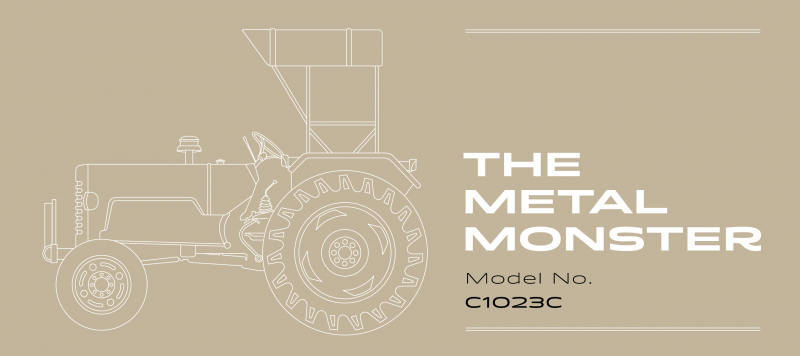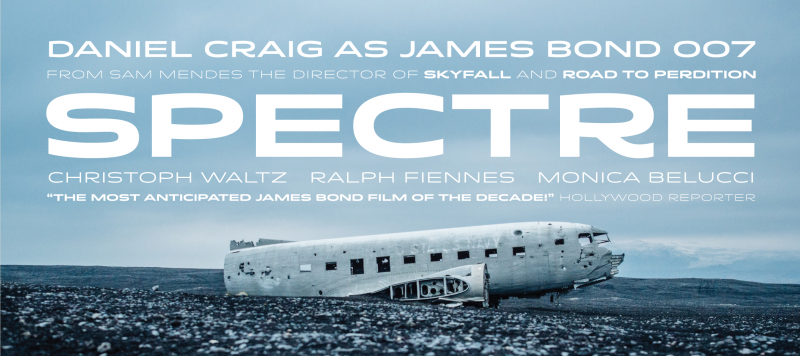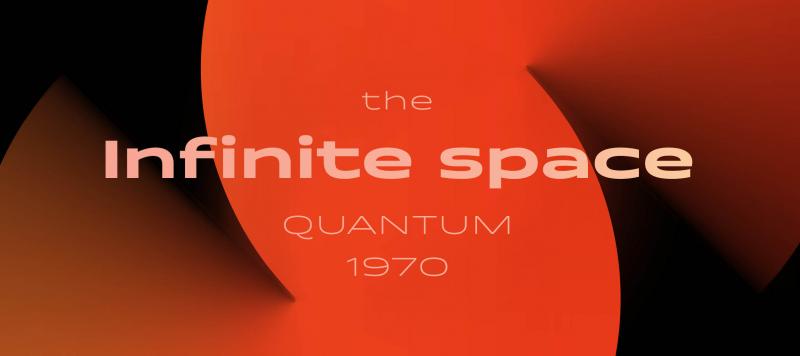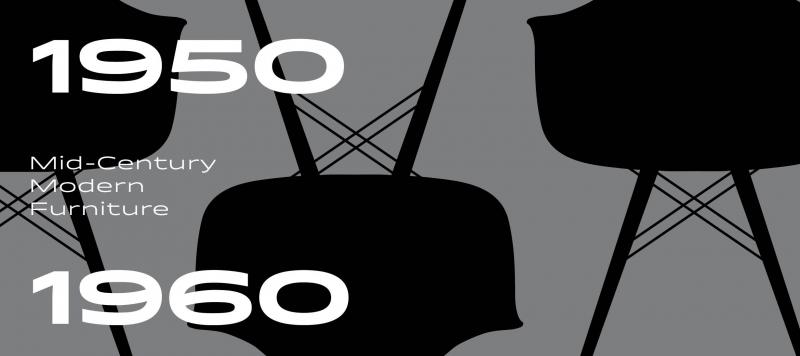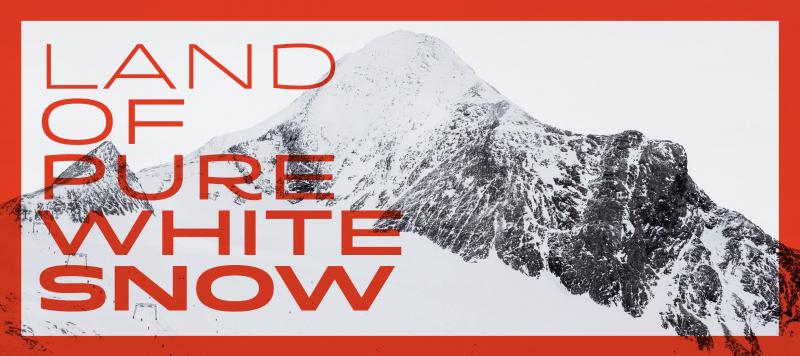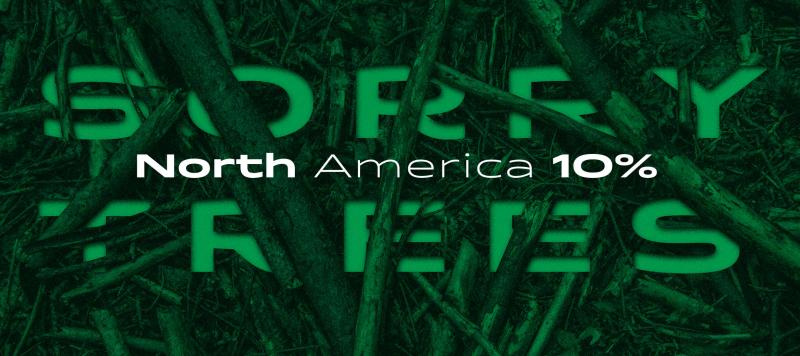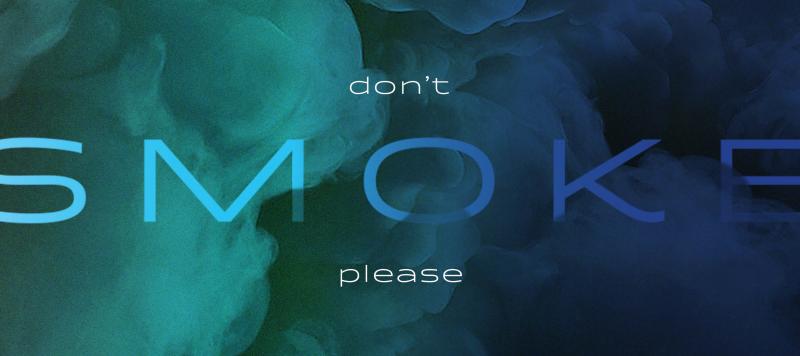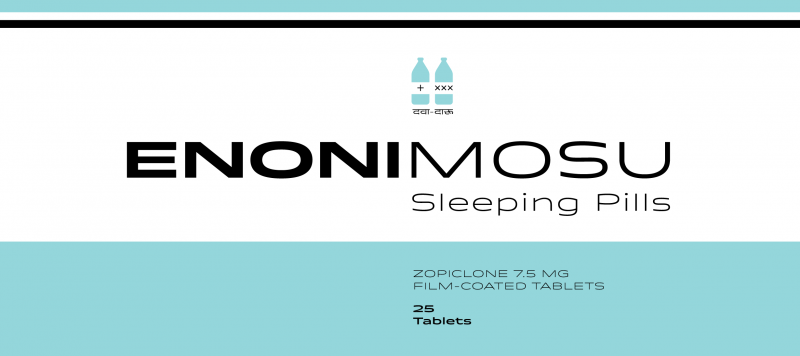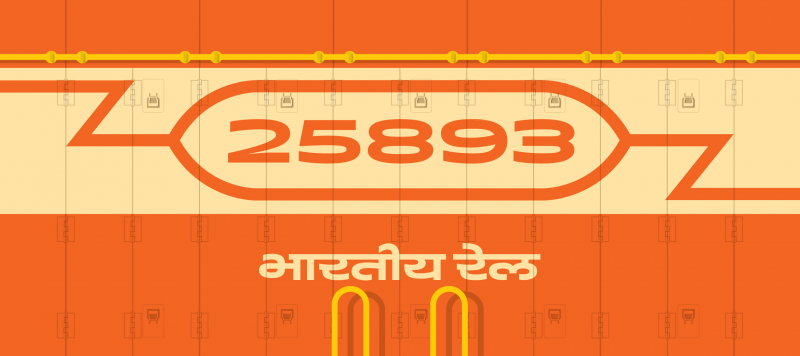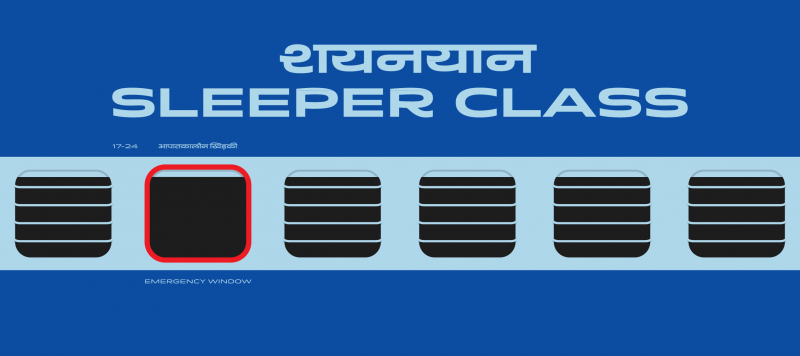
A very friendly-looking sans, Quantum is Hitesh Malaviya’s first published typeface for the Latin-script. Its five styles are very, very wide, but the letterforms do not look too technical. Stroke endings are vertical, like in a humanist sans. Don’t overlook the tails on ‘K,’ ‘Q,’ ‘R,’ and ‘k!’
Family Name | Quantum |
Designer(s) | Hitesh Malaviya (Rocky) |
Available Style | Light, Regular, Medium, Semibold, Bold |
Classification | Display, Sans |